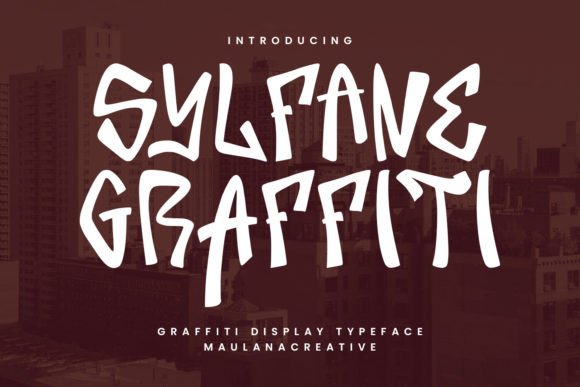
Sylfane Graffiti Font: Unleash Your Creativity with a Bold and Expressive Display Font
In the world of typography, few fonts manage to capture the essence of urban culture and street art as effectively as the Sylfane Graffiti Font. This bold and expressive display font is designed to bring an edgy, rebellious charm to your designs, making it the perfect choice for graffiti-inspired artwork, posters, and street-smart designs. In this article, we’ll explore the unique features of Sylfane, its uses, and how it can elevate your creative projects.
The Urban Edge of Sylfane Graffiti Font
Sylfane Graffiti Font is not just a font; it’s a statement. Its dynamic and energetic style is reminiscent of the vibrant street art that adorns city walls and alleys. The font’s bold, expressive letters seem to leap off the page, imbuing your designs with a sense of movement and energy. Whether you’re working on a poster, a flyer, or a digital project, Sylfane adds a touch of urban grit that is sure to grab attention.
Key Features of Sylfane Graffiti Font
- Bold and Expressive: Sylfane’s letters are bold, expressive, and full of character. Each letterform is designed to make a statement, perfect for creating eye-catching headlines and titles.
- Dynamic and Energetic: The font’s dynamic style gives it a sense of movement and energy, making it ideal for designs that need to pop.
- Urban Edge: Sylfane’s graffiti-inspired design gives it an unmistakable urban edge, perfect for street-smart designs and graffiti-inspired artwork.
- Versatile: Despite its bold style, Sylfane is surprisingly versatile. It can be used for a wide range of projects, from posters and flyers to digital designs and branding.
Uses of Sylfane Graffiti Font
Sylfane’s unique style makes it suitable for a variety of projects. Here are some of the best ways to use this versatile font:
- Graffiti-Inspired Artwork: Sylfane is perfect for creating graffiti-inspired artwork, including murals, stencils, and street art.
- Posters and Flyers: The font’s bold style makes it ideal for creating eye-catching posters and flyers for events, concerts, and exhibitions.
- Street-Smart Designs: Sylfane’s urban edge makes it perfect for street-smart designs, including skateboard decks, clothing, and accessories.
- Digital Designs: The font can also be used for digital designs, including social media graphics, video titles, and website headers.
Tips for Using Sylfane Graffiti Font
To get the most out of Sylfane, here are some tips for using the font effectively:
- Keep it Simple: While Sylfane is a bold font, it’s best to keep your design simple and focused. Avoid cluttering your design with too much text or imagery.
- Experiment with Colors: Sylfane looks great in bold, bright colors. Experiment with different color schemes to find the one that works best for your design.
- Mix and Match: Don’t be afraid to mix and match Sylfane with other fonts. The font’s bold style makes it a great choice for headlines, while a simpler font can be used for body text.
Sylfane Graffiti Font is a bold and expressive display font that brings an urban edge to your designs. Its dynamic and energetic style makes it perfect for graffiti-inspired artwork, posters, and street-smart designs. With its versatility and ease of use, Sylfane is a great choice for designers looking to add a touch of rebellious charm to their projects. So why not unleash your creativity with Sylfane and see what amazing designs you can create?
- What is Sylfane Graffiti Font? Sylfane Graffiti Font is a bold and expressive display font designed to bring an urban edge to your designs.
- What is Sylfane best used for? Sylfane is perfect for graffiti-inspired artwork, posters, street-smart designs, and digital designs.